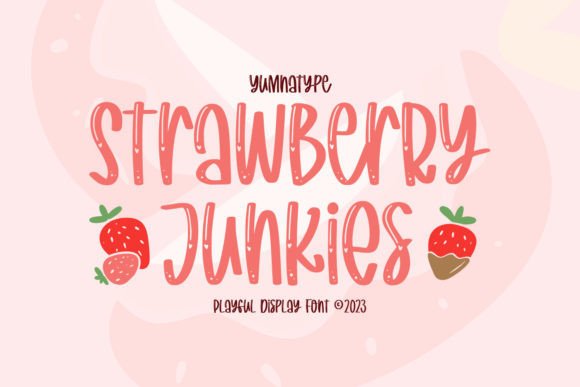
Introducing the Strawberry Junkies Font - the best font for app design in 2016! Created by Yumna_Type, this display font is designed to make your designs look more attractive and stunning, gaining more popularity for your brand. With its consistent geometry, proportion, and line thickness on every letter, this font is highly legible for big text sizes, making it perfect for app design.
But what sets Strawberry Junkies apart from other display fonts is its soft, fun nuances expressed through its prone circled letters. This feature makes it stand out from the crowd, ensuring that your brand is easily recognized by customers and audiences. And as we all know, a recognizable brand is key to building trust and loyalty with your customers.
So whether you're designing an app interface, a logo, or a marketing campaign, Strawberry Junkies is the perfect font for the job. It will help your brand capture attention and stand out from the competition. Don't settle for a boring font that fails to capture the essence of your brand. Choose Strawberry Junkies and elevate your designs to the next level!